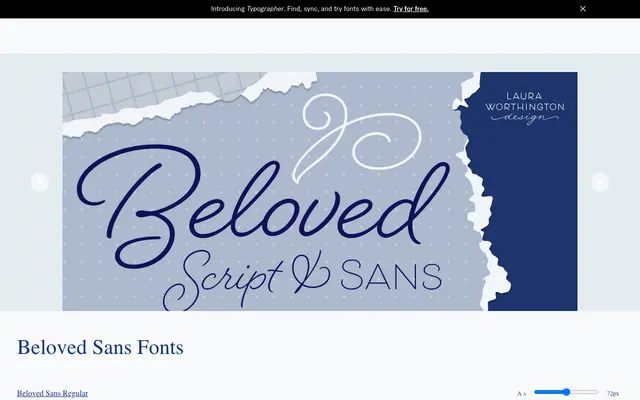
Beloved
An all-capitals display sans with over 800 swash and alternate forms, sold alongside a matching script and ornament family for wordmarks and decorative headlines.
Beloved Sans is an all-capitals face with small capitals scaled to roughly 85% of the full caps, offering just enough contrast for use in display settings. Its 800-plus swash and alternate forms make it well-suited to wordmarks and decorative headlines, with titling variants nodding to Art Deco and swashed capitals adding calligraphic character. The collection bundles Beloved Script in regular and bold, plus a Design Elements family of ornaments, all coded to expose alternates without requiring professional design software.
An all-capitals display sans with extensive swash and alternate forms, Art Deco titling variants, and accompanying script and ornament families, placing it firmly in decorative display territory.